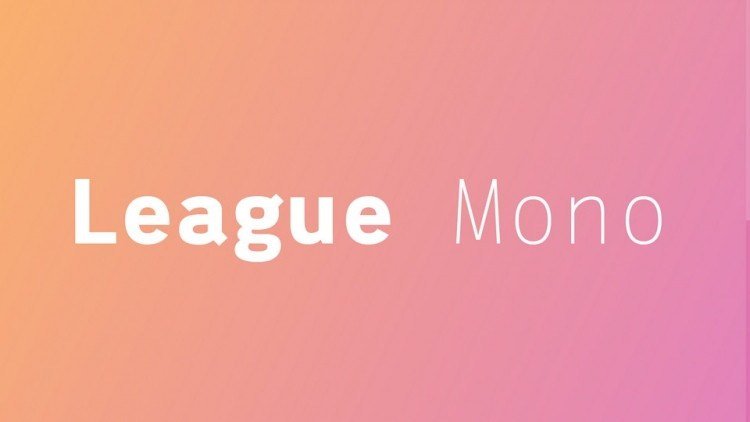
League Mono Font Family
League Mono is a monospace variable font family, featuring amashup of sorts, inspired by some beautiful forms found in both Fira Mono, Libertinus Mono, and Courier. Use the one TTF file called LeagueMonoVariable.ttf for 40 predefined styles of League Mono.
Then tweak the weight or width (from condensed – 50 – to extended – 200 – with various weights – 30 through 200).